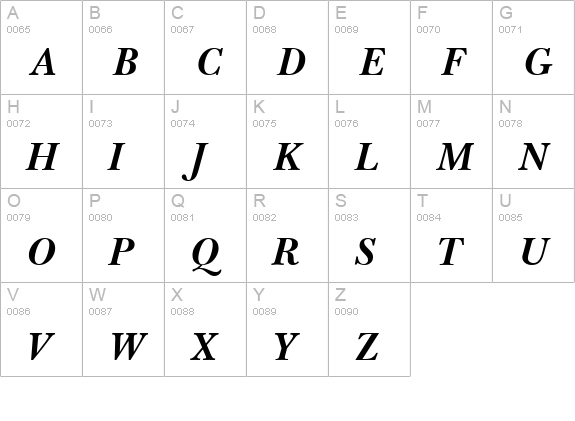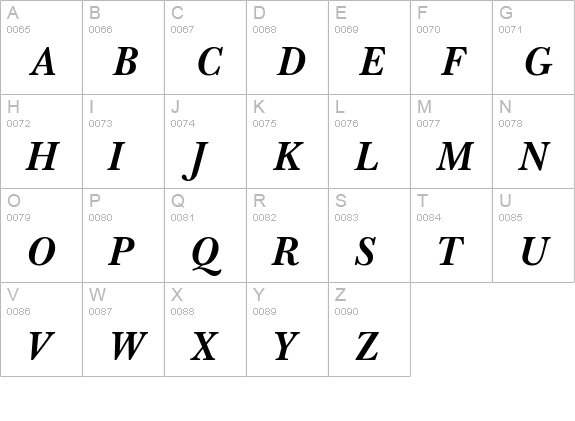
Baskerville Black SSi Bold Italic Font Details
Baskerville Black SSi Bold Italic is a maximum-weight, dramatic, italic variant in the Baskerville typeface family \xE2\x80\x94 well suited to maximum-impact headlines, posters, and packaging.
Baskerville Black SSi Bold Italic font exudes sophistication and elegance with its bold yet graceful design. Its sleek and modern aesthetic makes it perfect for creating eye-catching headlines and impactful designs. The striking contrast between thick and thin strokes adds a touch of drama to any project. Whether you're designing a luxury brand logo, a magazine layout, or a poster for a high-end event, Baskerville Black SSi Bold Italic font will elevate your work to the next level. And the best part? This exquisite font is available for free download at FontsMarket.com. With just a few clicks, you can add this premium typeface to your font library and start using it in your designs right away. Don't miss out on the opportunity to enhance your projects with the timeless beauty of Baskerville Black SSi Bold Italic font - get it now for free and take your designs to new heights!